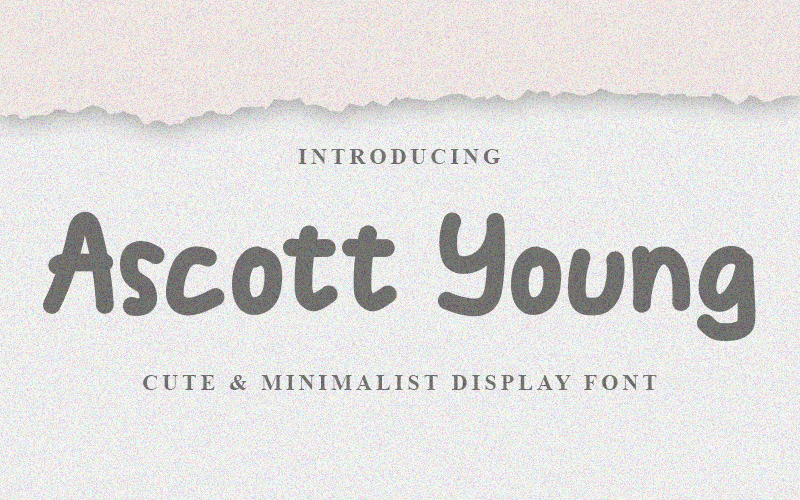
Preview and download Ascott Young Font. Created by Denny Sutanto in Script Handwritten styles with Free for personal use license.
Font name: | Ascott Young |
Author: | Denny Sutanto |
Ascott Young Font is a Cute and Minimalist Display Font that's really cheerful theme for your fun project. Simple and easy to use, this font will be very beautiful if you mix it with your various craft designs. What�s Included : � OTF & TTF � Works on PC & Mac � Easy to use ( Installations ) � Easy Convert to webfont � Compabilty Windows, Apple, Linux, Cricut, Silhouette and Other cutting machines Note of the author: NOTE: This Demo is for PERSONAL USE ONLY! But any donation are very appreciated. PayPal Account for Donations: https://lnkd.in/fPg-VuA Link for Donations via PayPal: paypal.me/dennysutanto93 link to purchase full version and commercial license: - Creative Fabrica: https://www.creativefabrica.com/product/ascott-young/ref/235725/ Please visit our store for more great fonts: - https://www.creativefabrica.com/designer/densudesign/ and follow my Instagram for update: https://www.instagram.com/densudesign/ Thank You #AscottYoungFont #AscottYoung #Font #simple #playful #joy #handwriting #soft #cheerful #font #fontdesign #logo #businesscard #card #design #graphic #written #handwritten #simple #family #cheers #cheerful #font #fontdesign #logo #businesscard #card #design #graphic #written #handwritten #simple #family #cheers #cheerful |